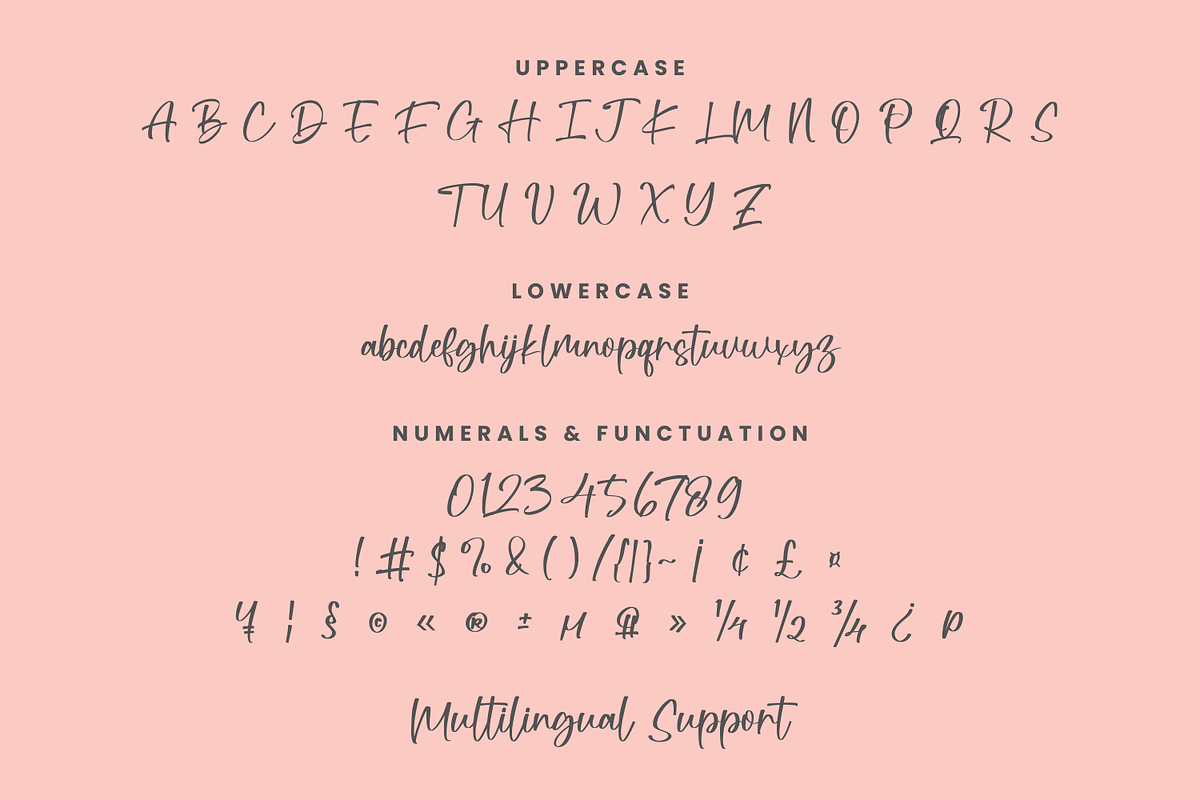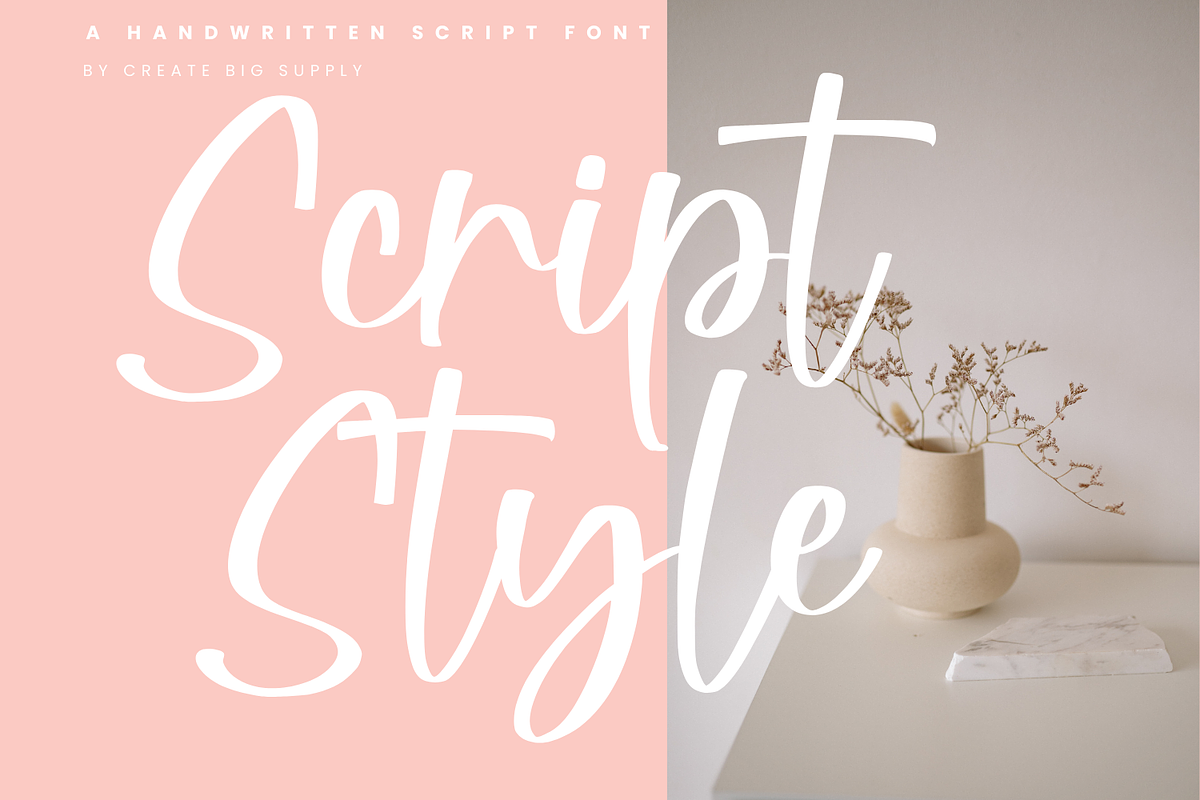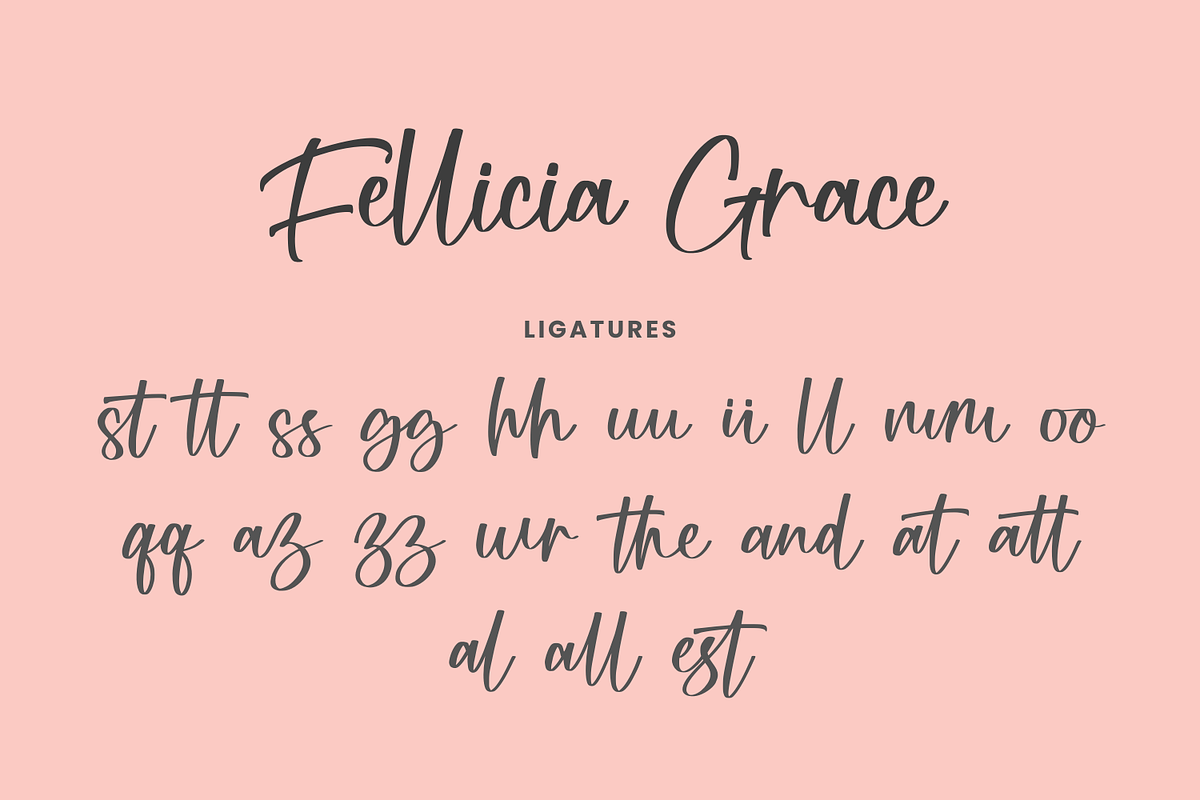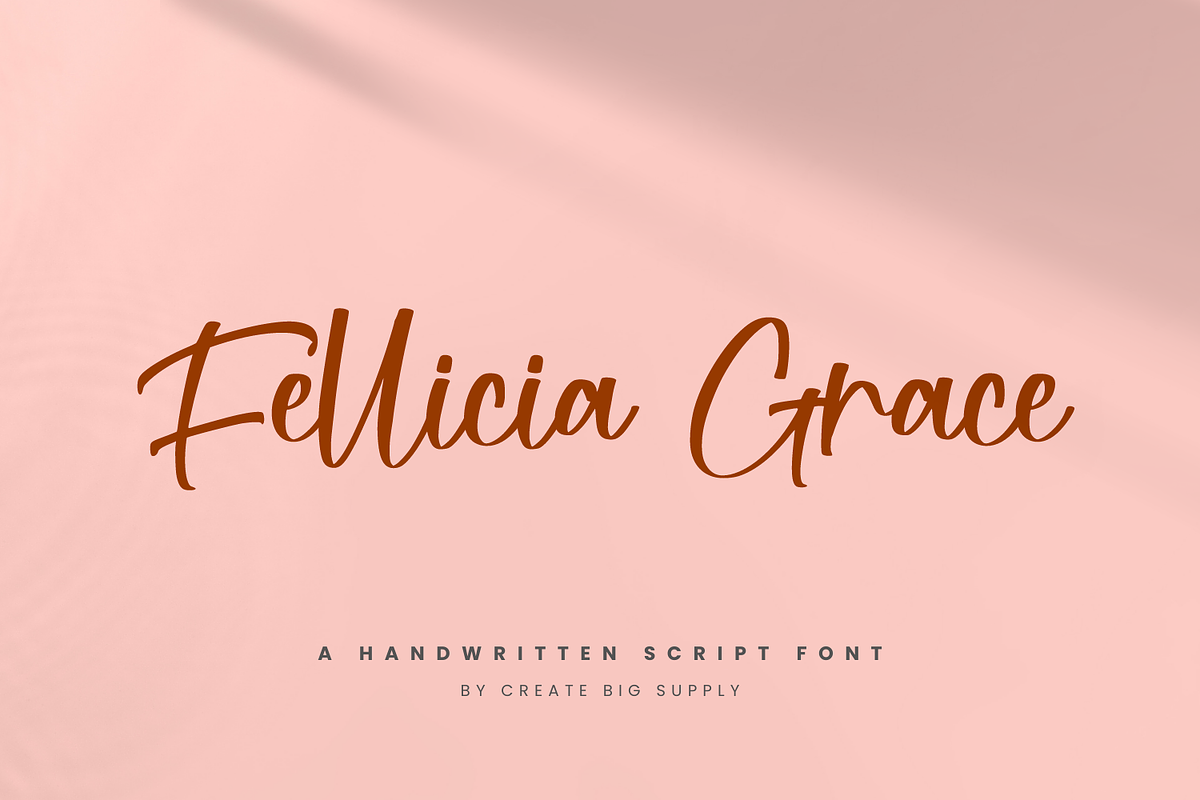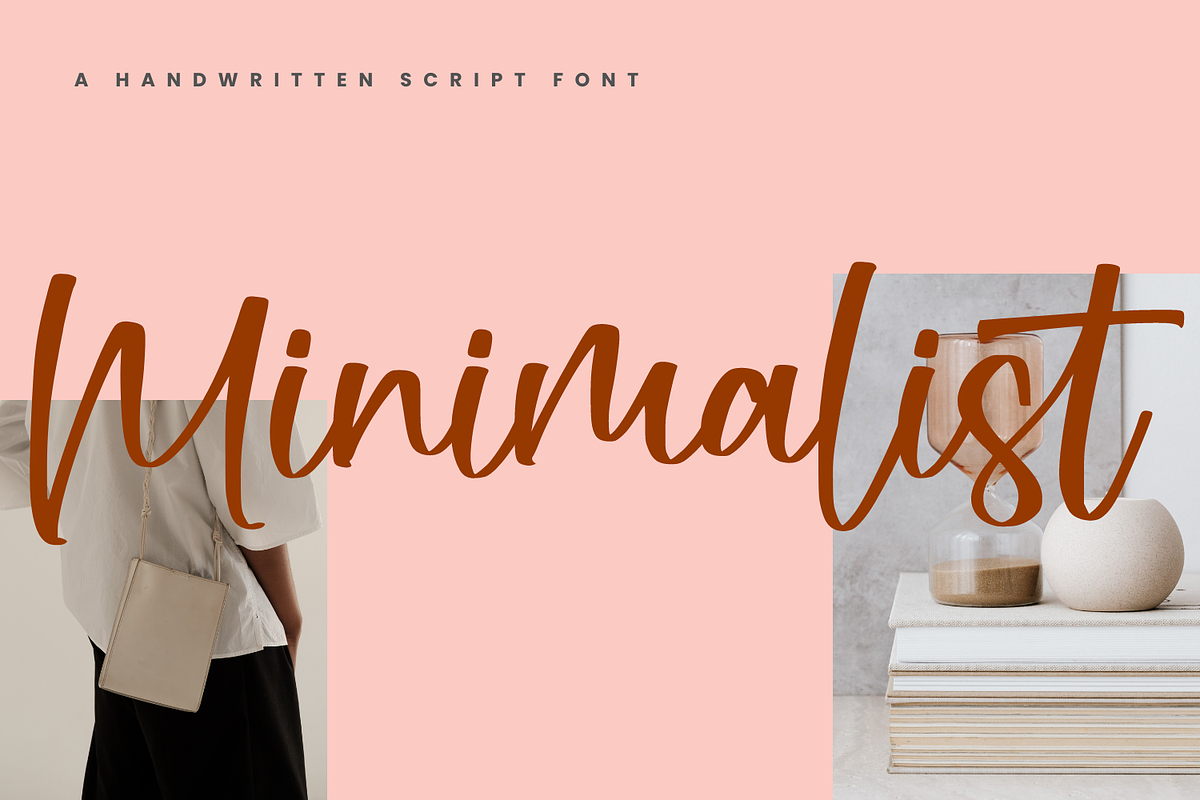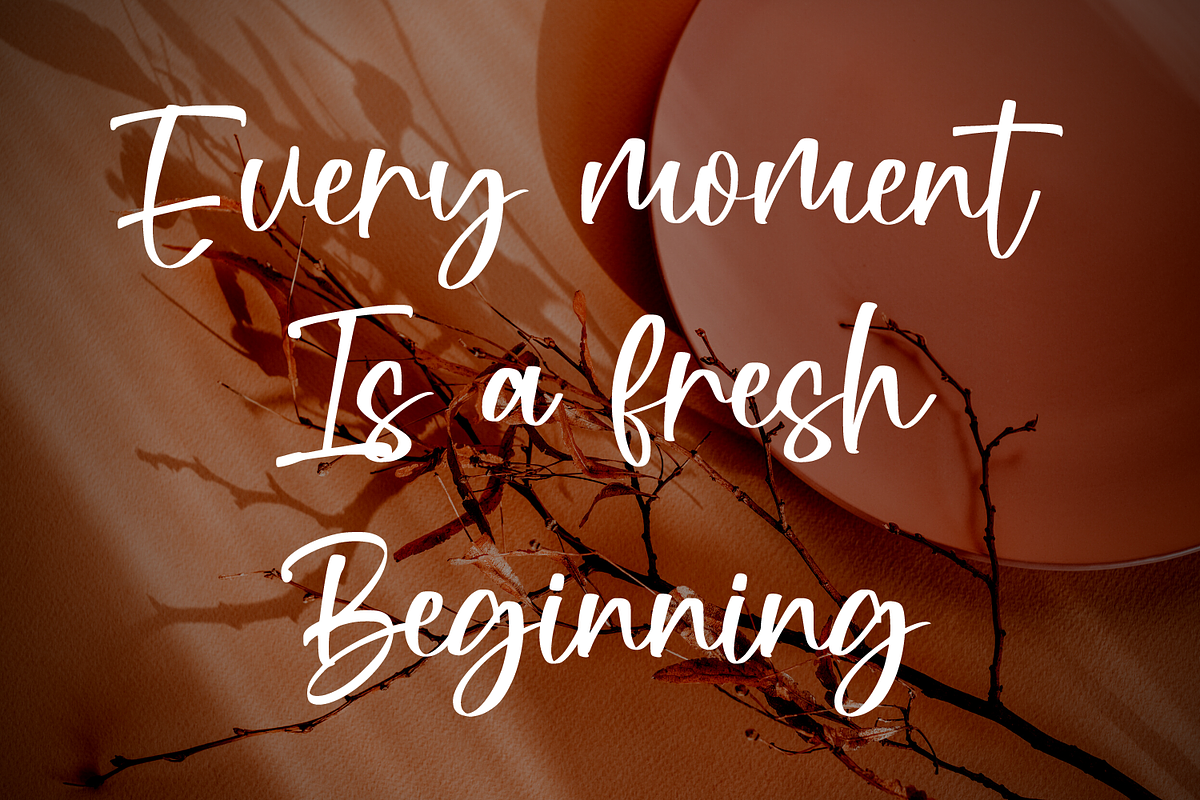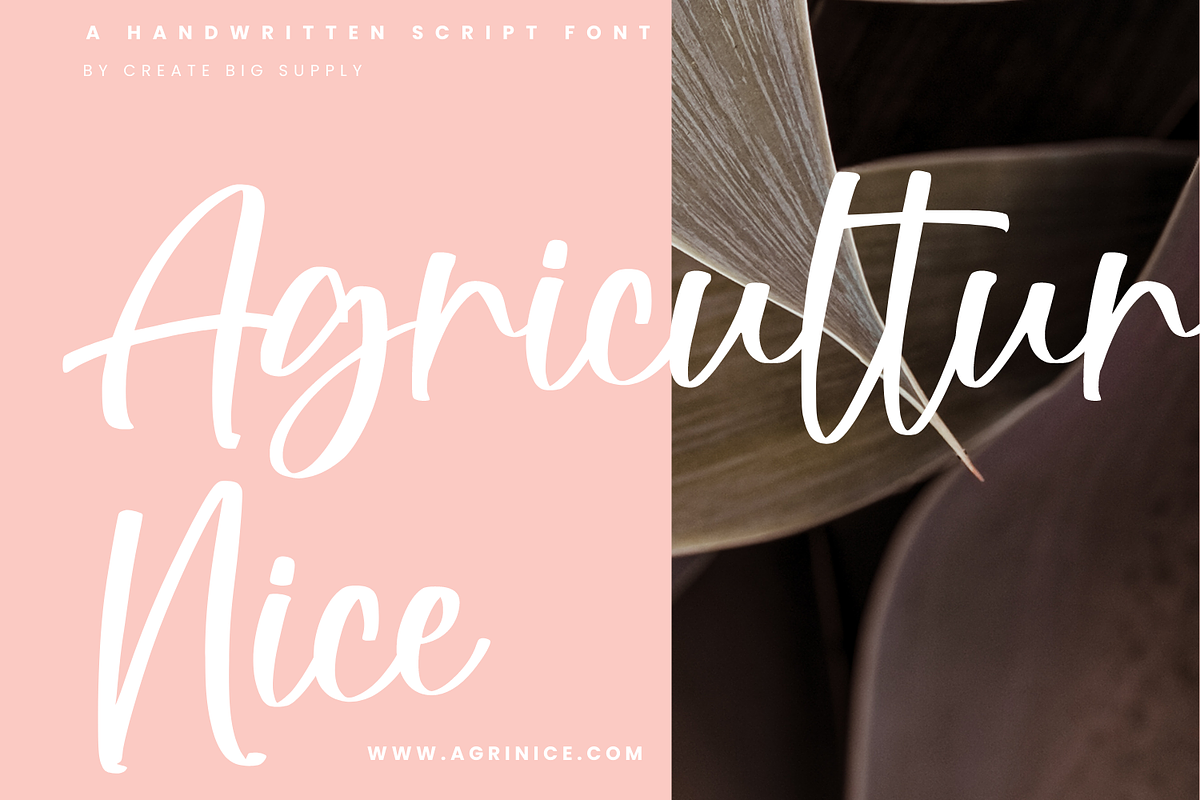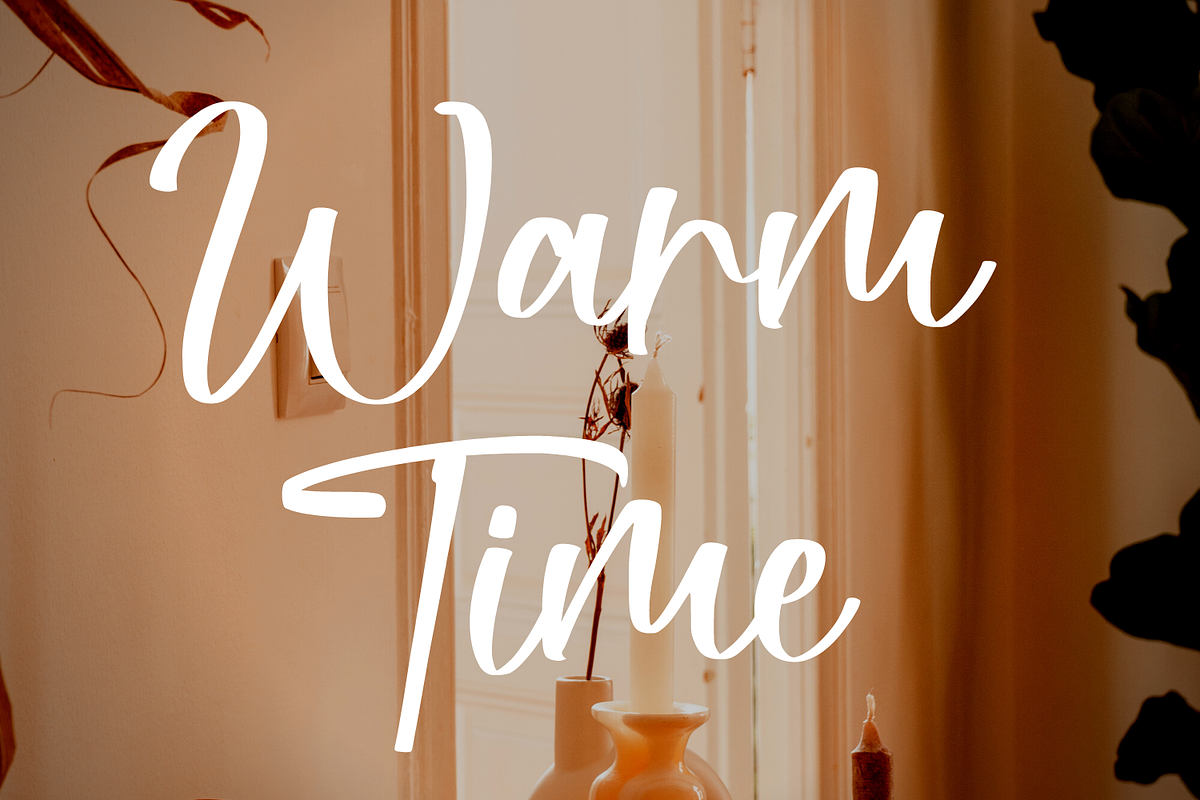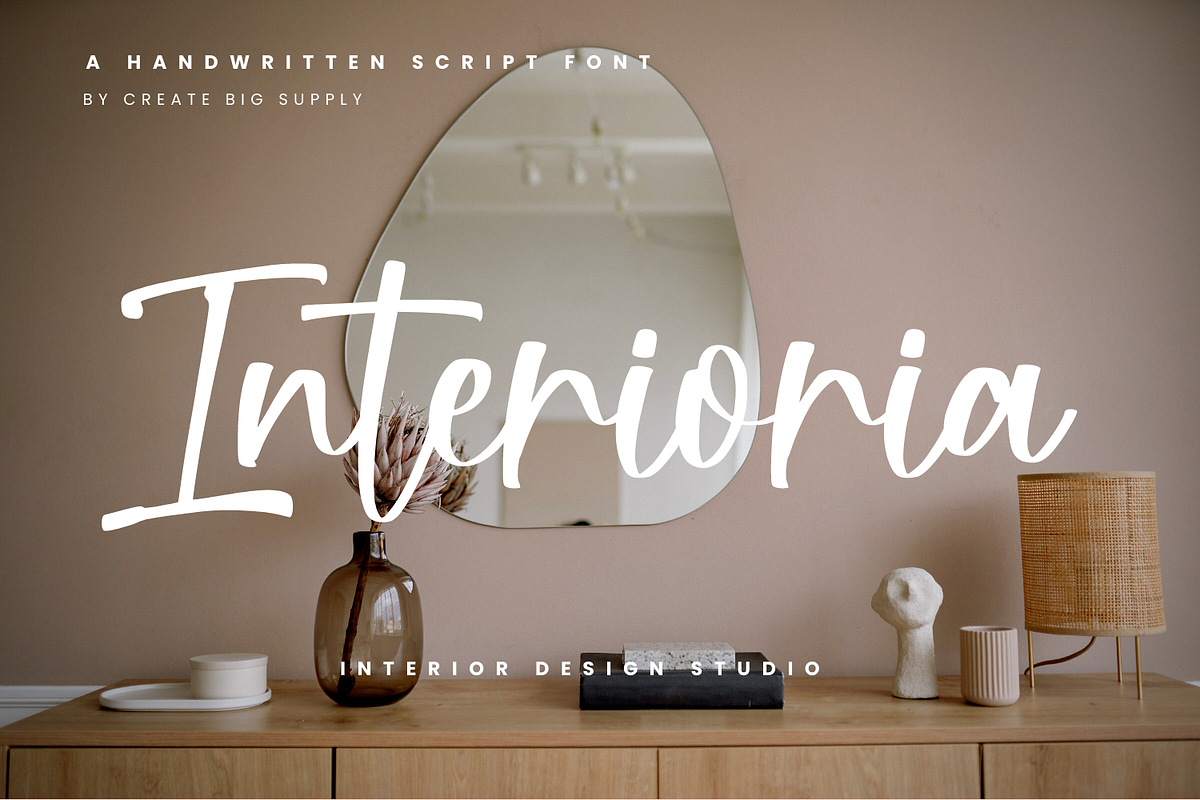
Fellicia Grace
Experience the elegance of Fellicia Grace, a stunning signature handwriting font designed to add a touch of sophistication to your creative projects. With its graceful strokes and authentic handwritten style, Fellicia Grace exudes a sense of refinement and personalization. Whether you're creating logos, invitations, or branding materials, this font will elevate your designs to new heights. It offers both uppercase and lowercase letters, along with numbers and punctuations, ensuring versatility in your typographic compositions. Fellicia Grace is also multilingual, allowing you to communicate your message across different languages and cultures. Additionally, it features PUA encoding for easy access to special characters and ligatures. Unlock the beauty of Fellicia Grace and bring elegance to every design.